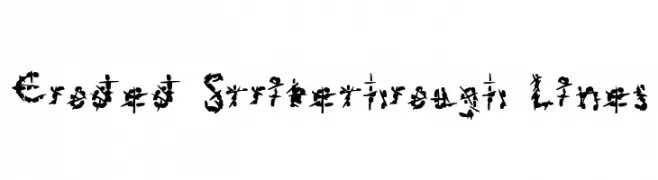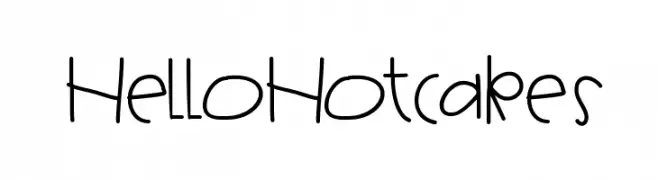
Braille is a tactile writing system for the visually impaired, using raised dots for characters.
A playful collection of devilish character illustrations in a cartoonish style.
A pixelated, retro-style font with a blocky, geometric design.
A playful, casual handwritten font with a lively and informal style.
A playful, hand-drawn font with a whimsical and friendly style.
A bold, hand-drawn font with a playful, textured appearance.
A bold, playful font with geometric shapes and star cutouts.